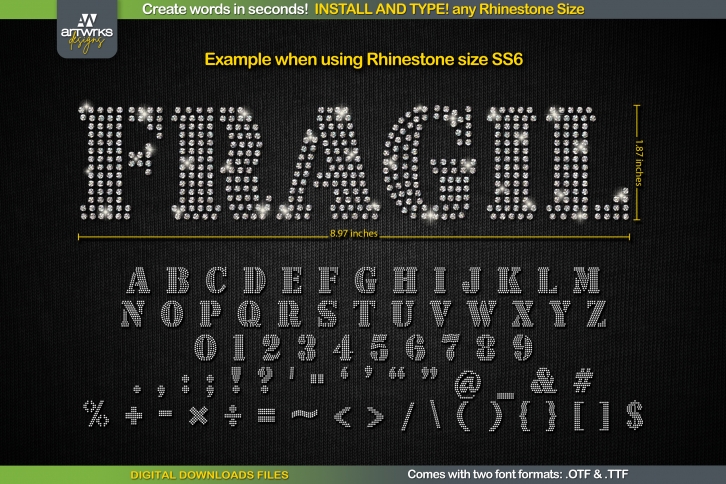
This is a very cool Rhinestone Template TTF will let you create words in seconds! simply download, install, and type… It’s that easy! In addition, when you type, each letter is filled perfectly with rhinestones or arranged and trapped for heat transfer vinyl so you can conveniently customize your designs with text. SEE the size of each letter in the images of the publication. This Rhinestone Template TTF comes in two font formats. (.OTF & .TTF). Use this to make rhinestone T-shirts, heat transfer vinyl, and more.
Simply download the Rhinestone Template TTF font and install it, type whatever you like and that’s it! In addition when you type each letter is filled perfectly with rhinestones or arranged and trapped for heat transfer vinyl so you can conveniently customize your designs with text.
This editable rhinestone template TTF font works only with the characters shown on the image description